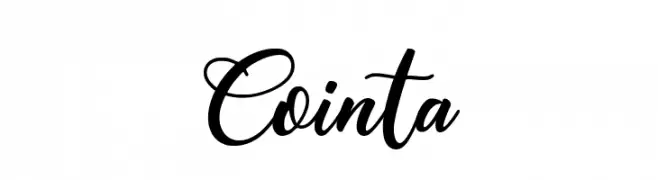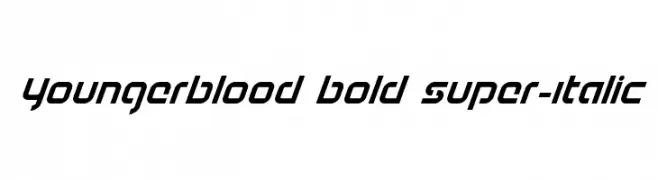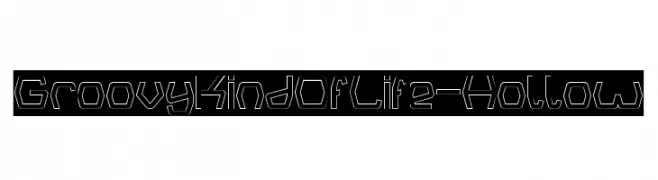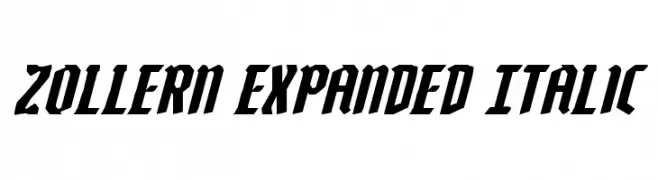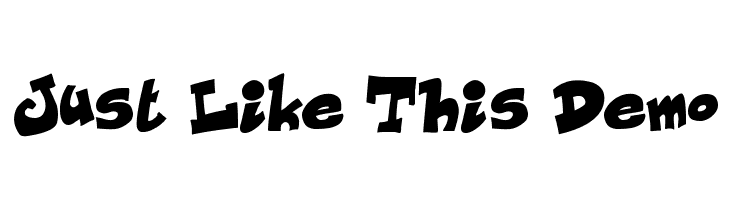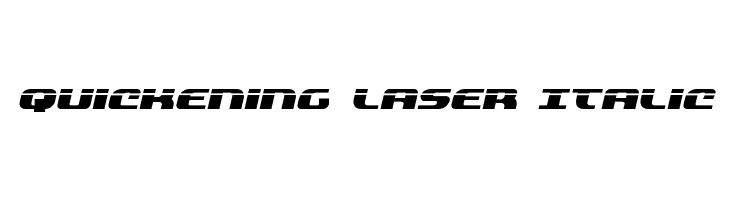
A whimsical decorative font with bird-like characters, ideal for playful projects.
An elegant and ornate script font with flowing, decorative letterforms.
A modern, extra-condensed oblique font with a ghostly outline.
A bold, geometric font with a futuristic and angular design.
A bold, italicized font with a modern, geometric design.
A bold, angular font with a graffiti-inspired, edgy style.
A geometric, hollow font with a futuristic and angular design.
A playful, hand-drawn font with thin, whimsical strokes.
A flowing cursive font with elegant, connected letters and a calligraphic style.
A bold, italicized font with sharp angles and expanded width, perfect for striking headlines.